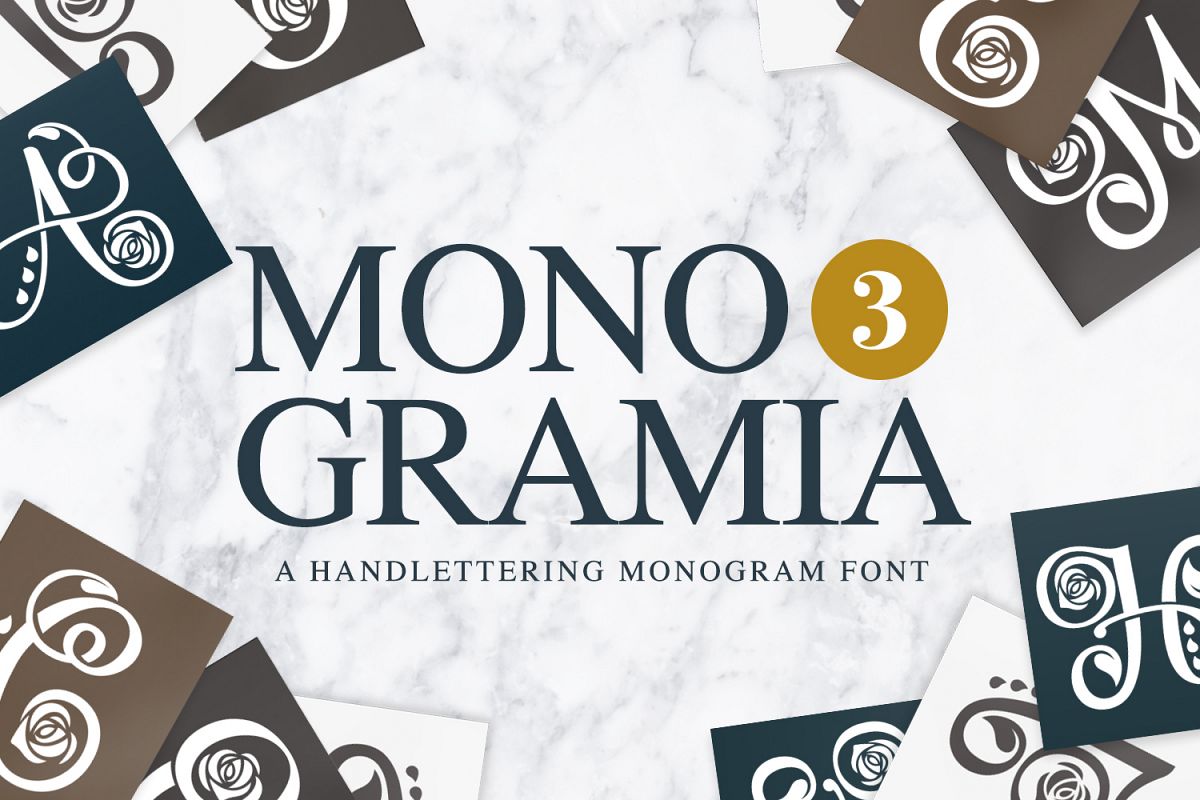
Monogramia 3 is the 3rd version of the popular Monogramia https://fontbundles.net/font-bundles-store/76218-monogramia & https://fontbundles.net/font-bundles-store/88392-monogramia-2. This version is more floral in style. Simply use them as part of your projects to make them stand out from the crowd!